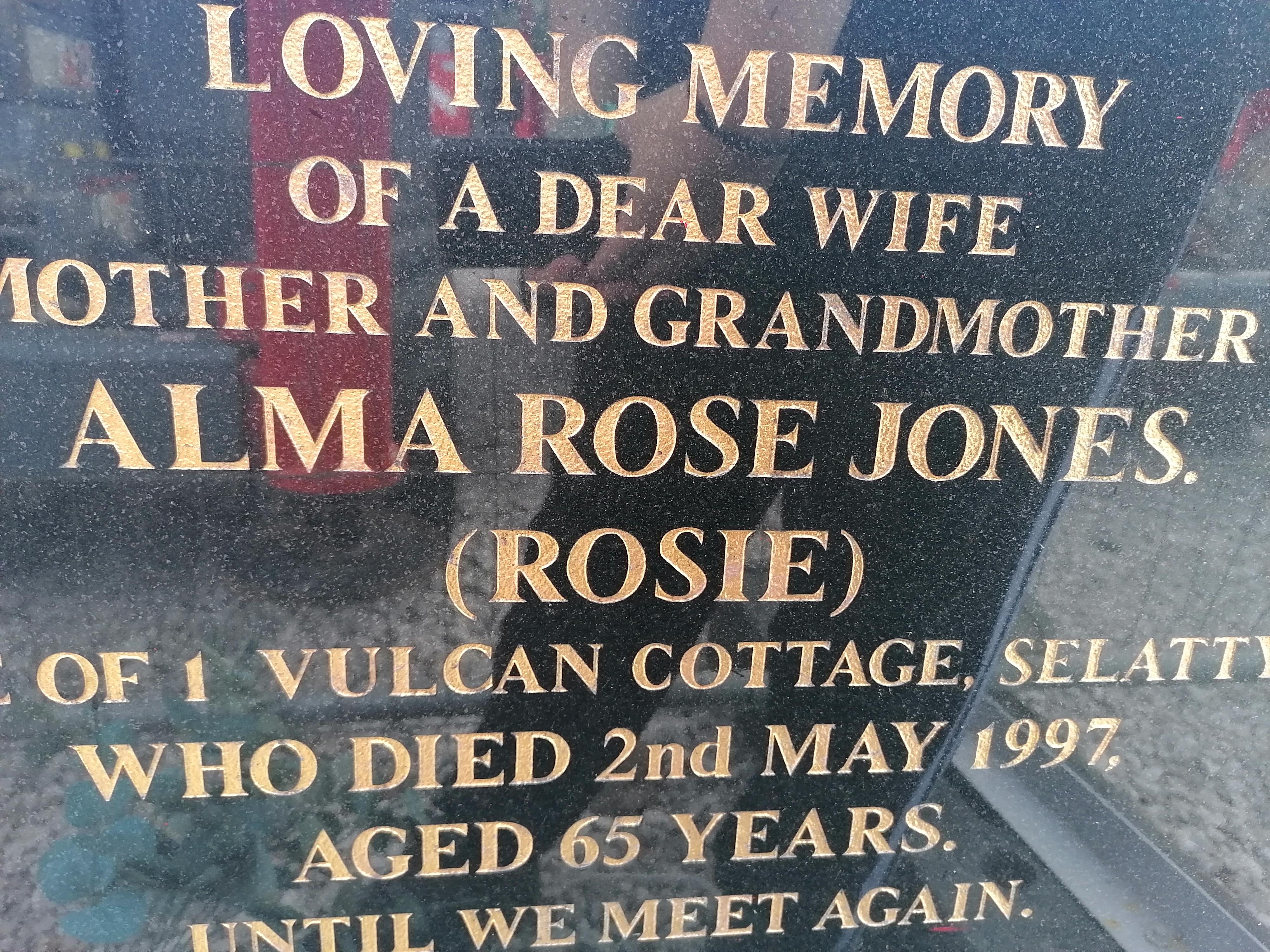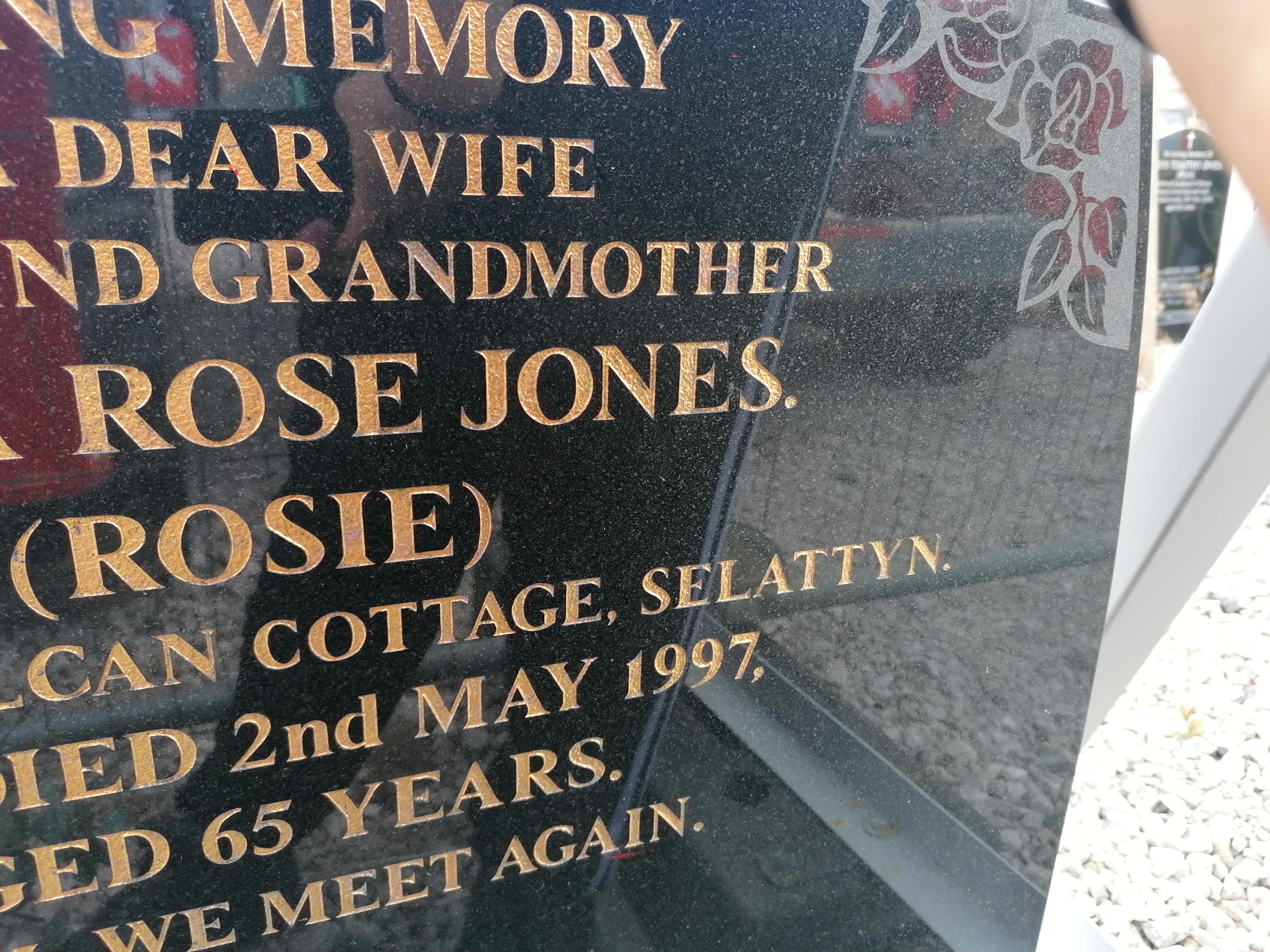
please help with bold roman font
Do you have any information on this font please?
Hello, this appears to be a modified version of Times New Roman Black. I have never seen a font available online or in any memorial design software with these changes made to the J, S, 2, etc.